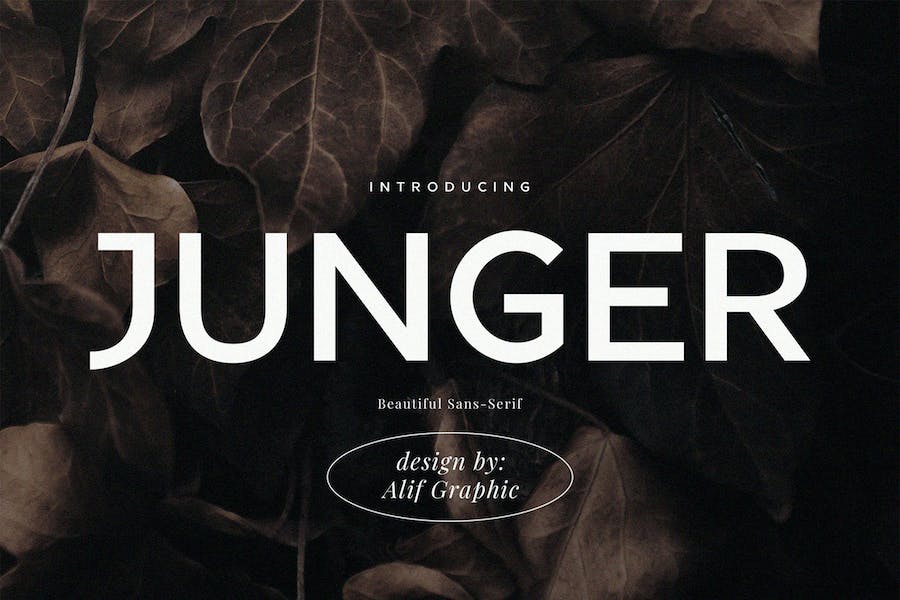
Junger Font
Introducing Junger Modern Sans is a graceful, modern, italics form of the serif type. This typeface is modern and with elegance, compatible for use on websites, logos, magazines and in social media.
This font partner is matched and ready for your design! If you need a touch of elegance, chic, class as well as modernity in your designs, this font is for you.
Junger Sans Serif Font
Junger Font 2